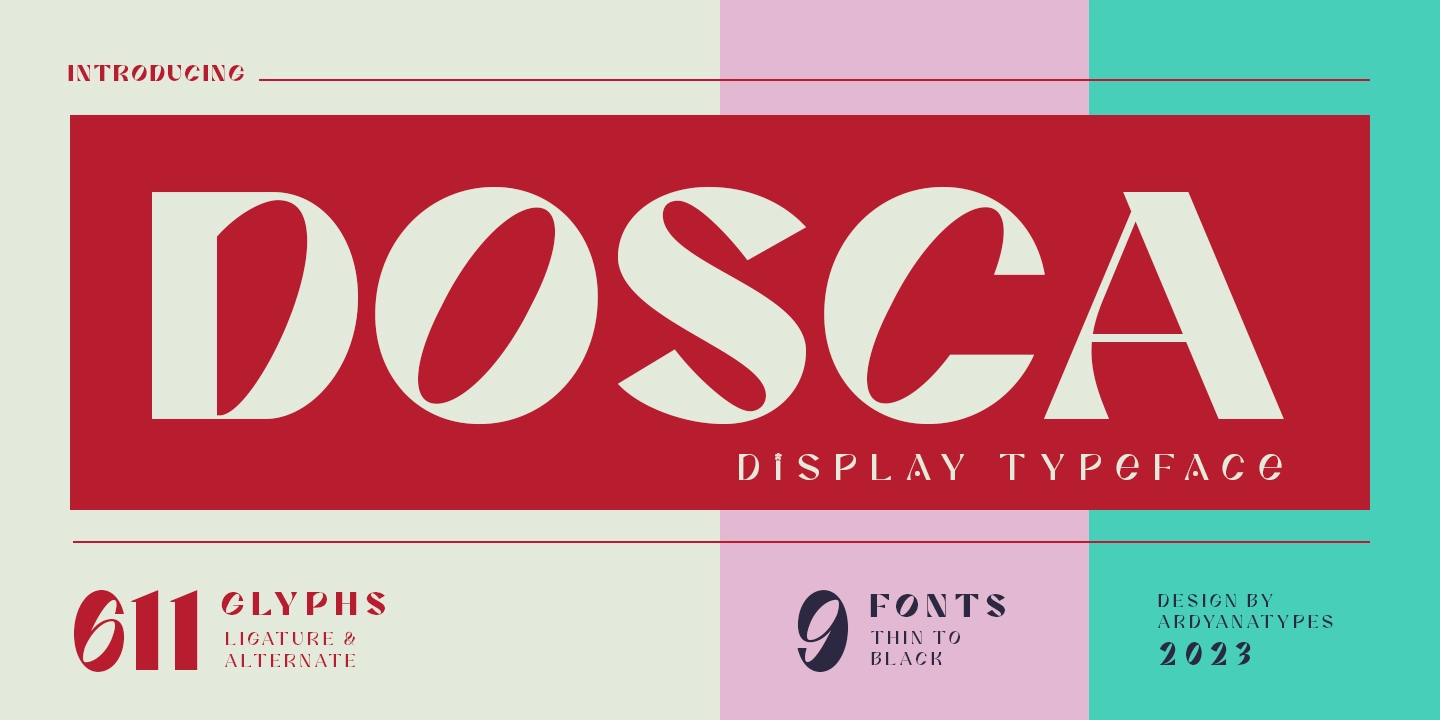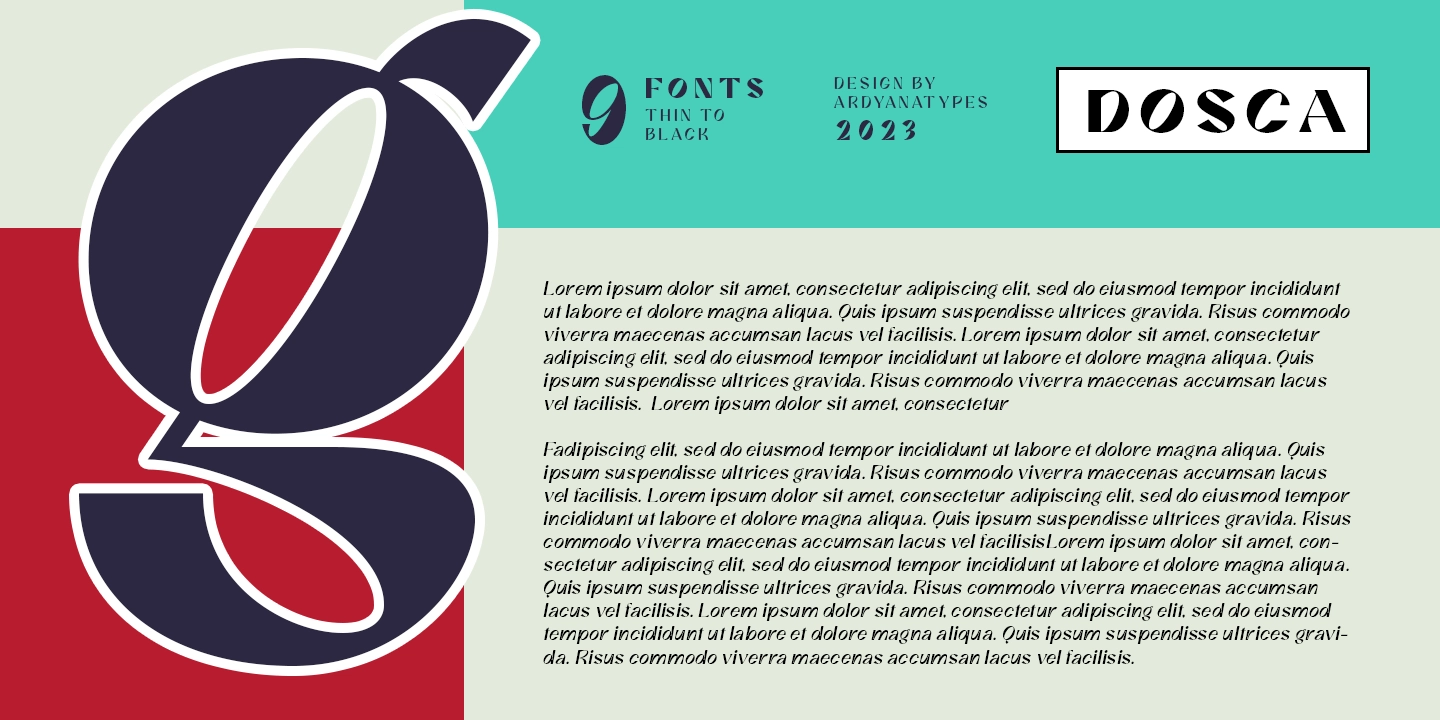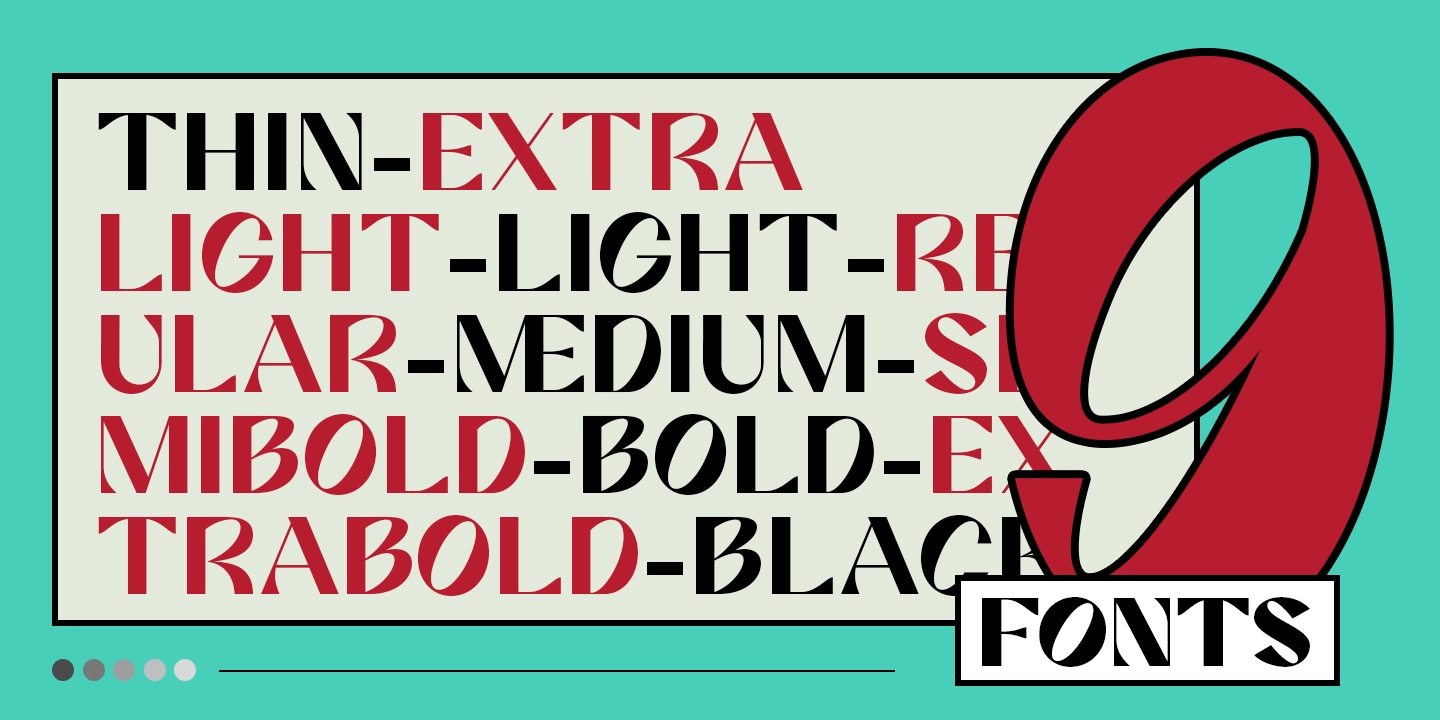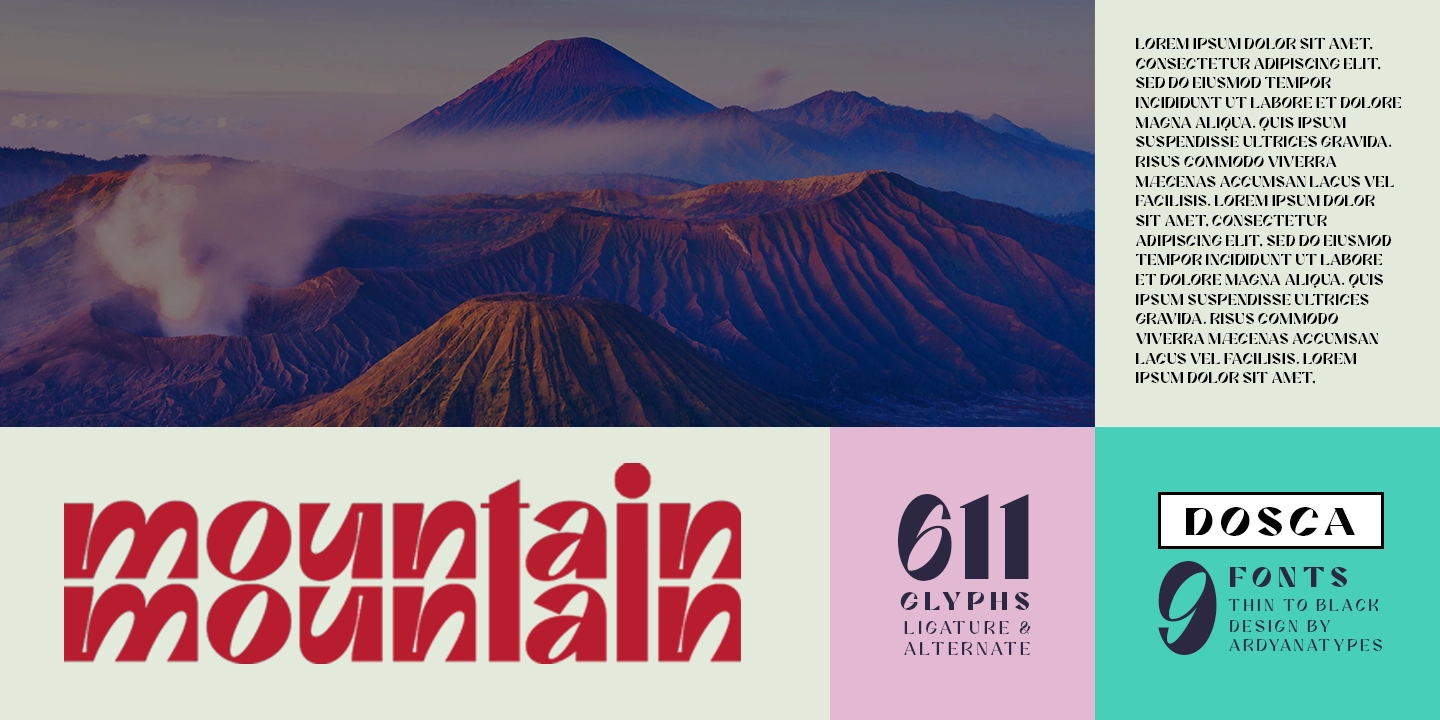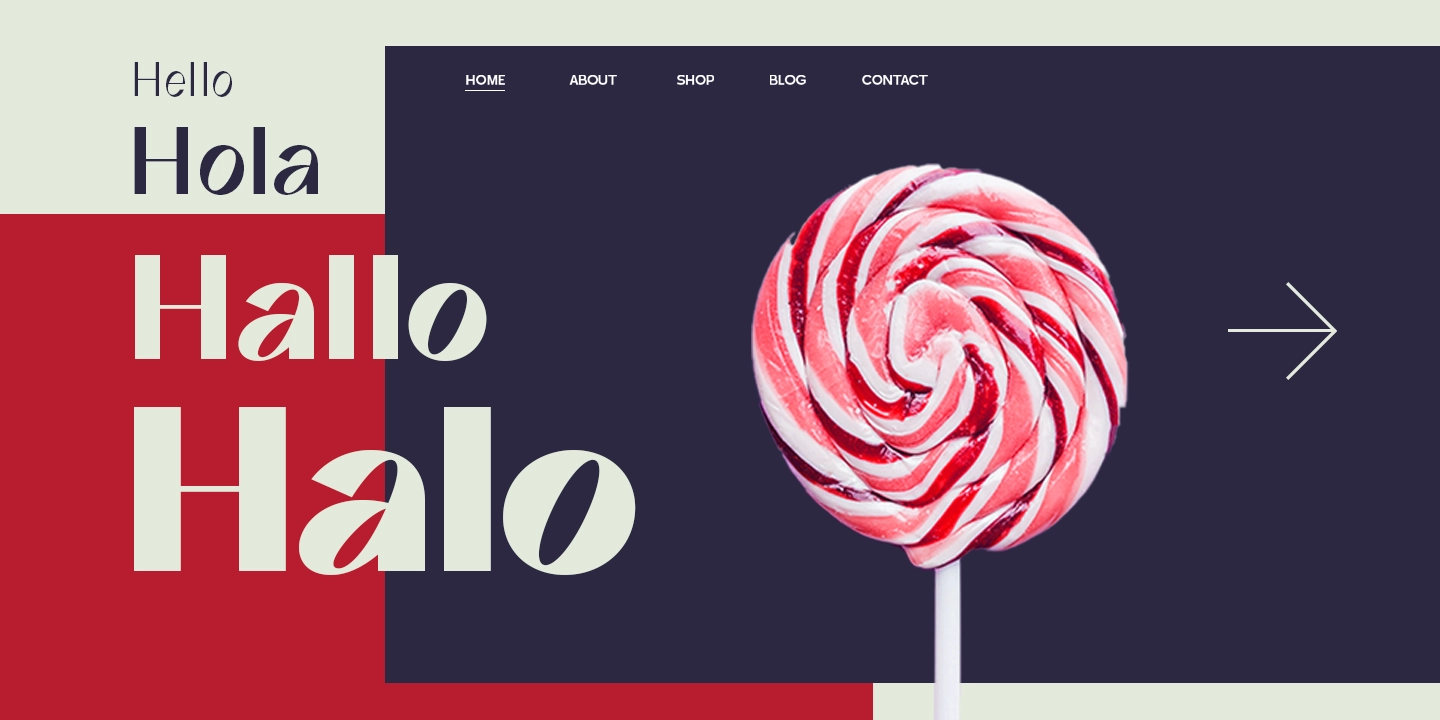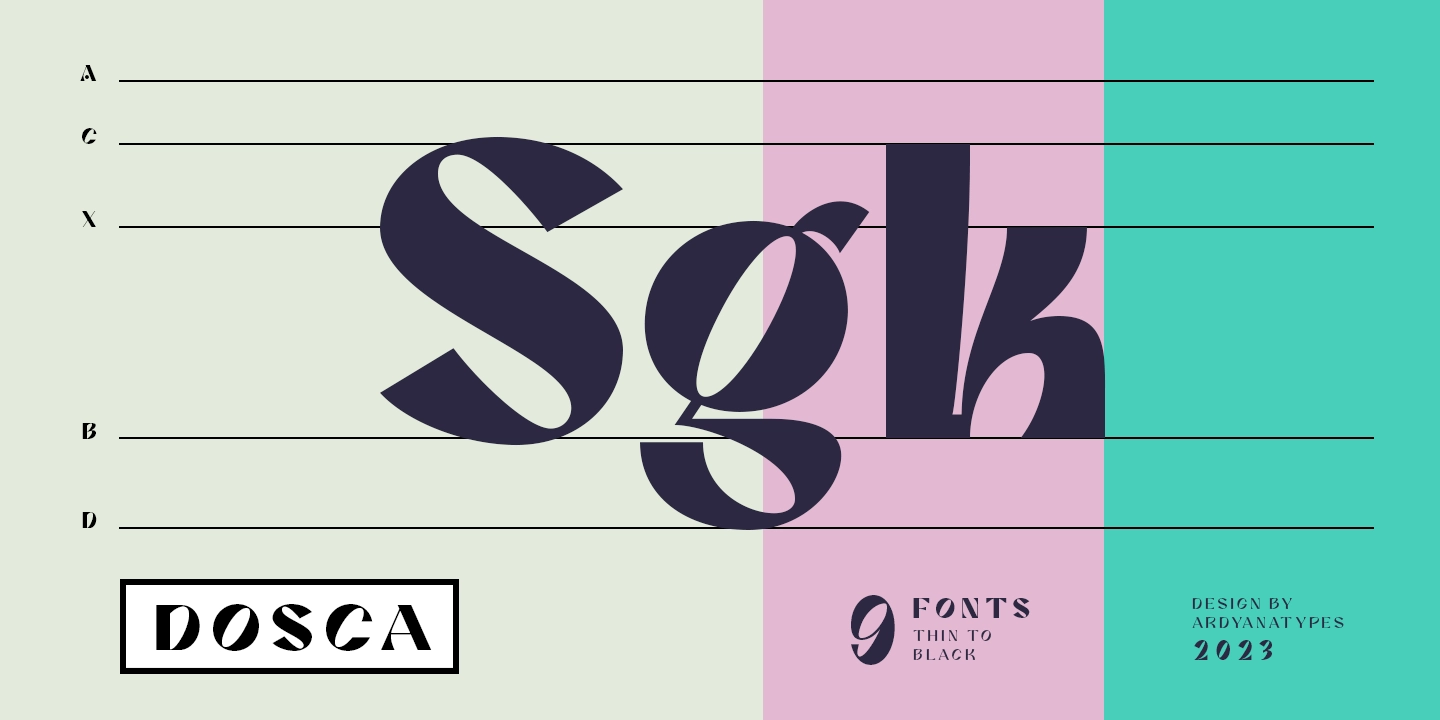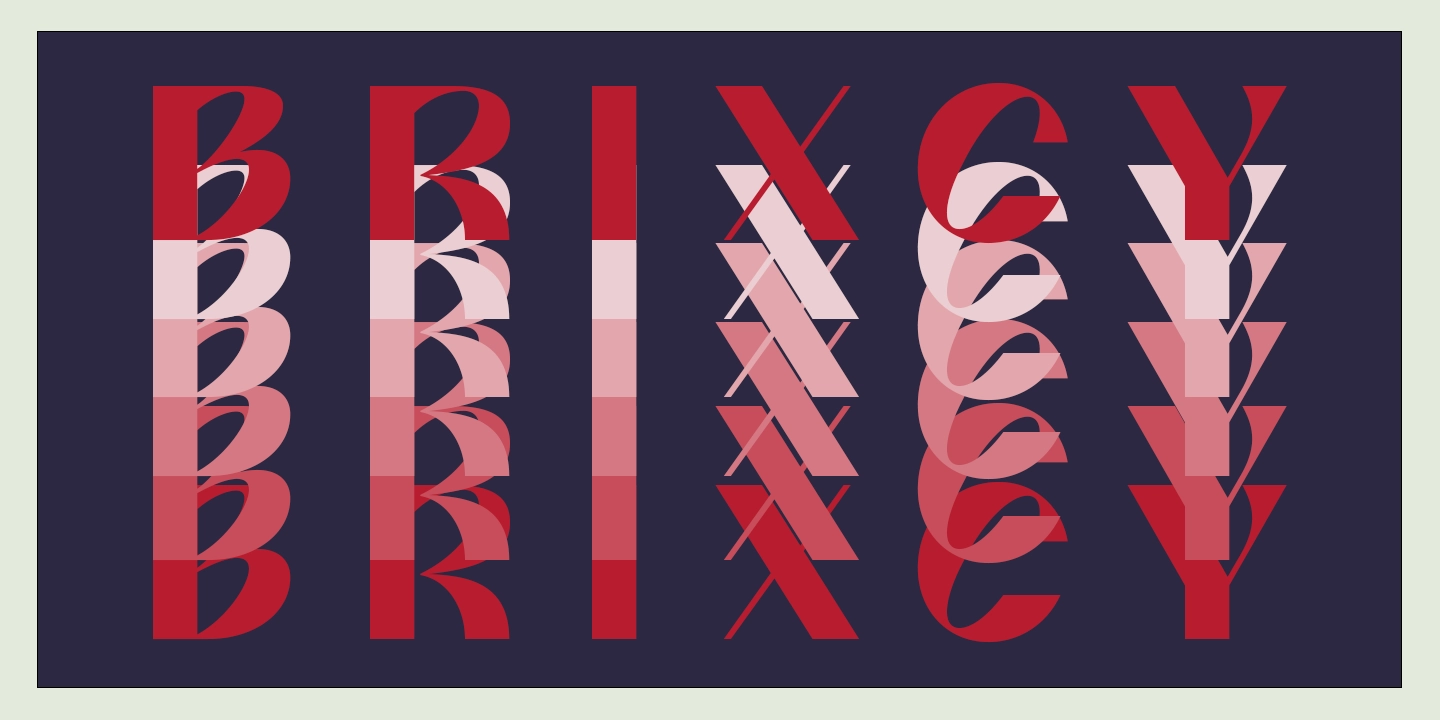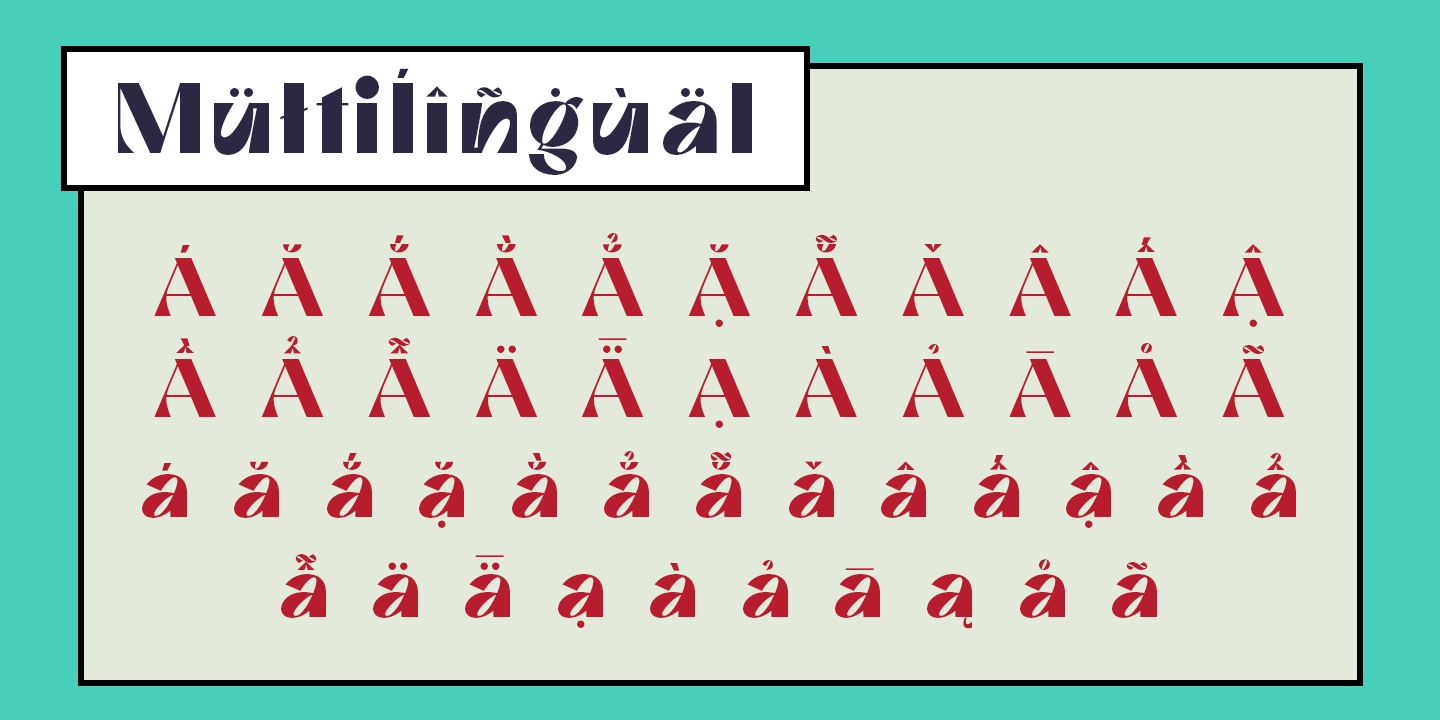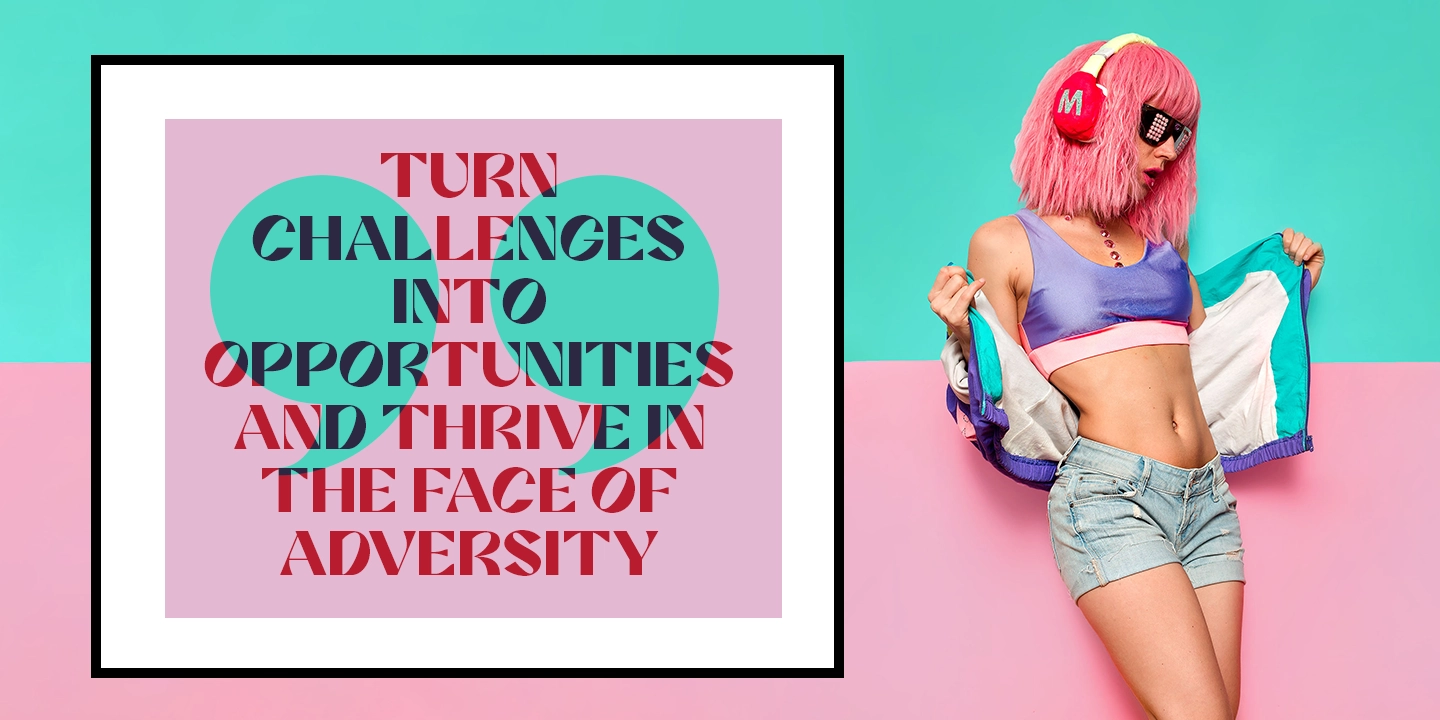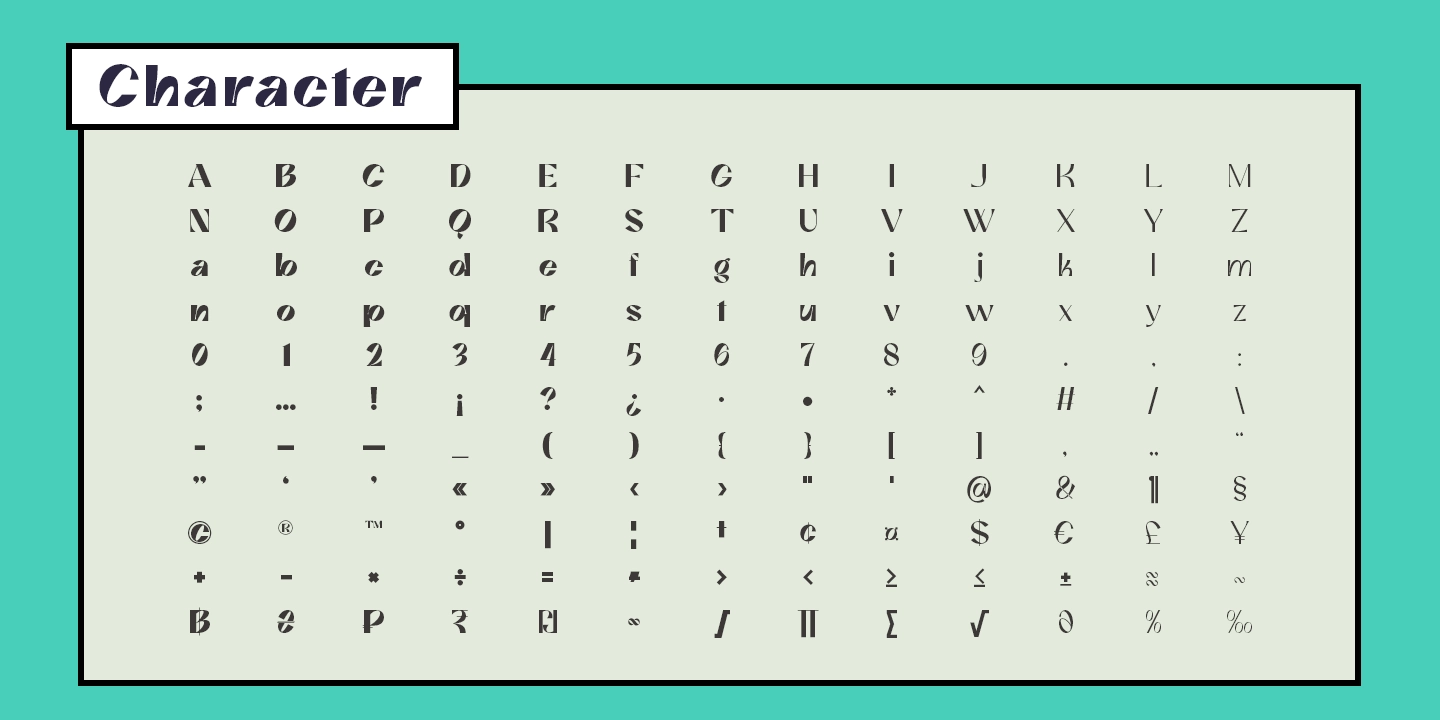
Dosca - Display Font
9 Styles
Dosca is a unique and elegant display font with a unique Sans serif style. This font offers nine different thickness options, ranging from Thin to Black, providing a variety of options for a variety of applications. Each Dosca thickness has its own unique characteristics, so you can choose the one that best suits your design aesthetic. For example, Thin may be suitable for a light and elegant design, while Black may be used for a more dramatic and bold appearance.
Additionally, Dosca comes with various OpenType features. These include features such as ligatures, which allow certain characters to be combined beautifully, and alternative letterforms that provide more design options. With this feature, you can create more interesting and unique text elements in your designs.
Dosca is designed to support multiple languages so it is suitable for use in many countries. This makes it very versatile and suitable for a variety of multilingual design projects.
So, if you're looking for a font that combines the beauty of Sans serif with a variety of thickness options, useful OpenType features, and multilingual support, Dosca is the perfect choice to meet your design needs.
• ffi ffi
• ffk ffk
• ffl ffl
• AE AE
• MD MD
• ME ME
• MR MR
• OE OE
• OO OO
• ae ae
• fb fb
• fh fh
• fj fj
• fk fk
• fl fl
• ft ft
• oe oe